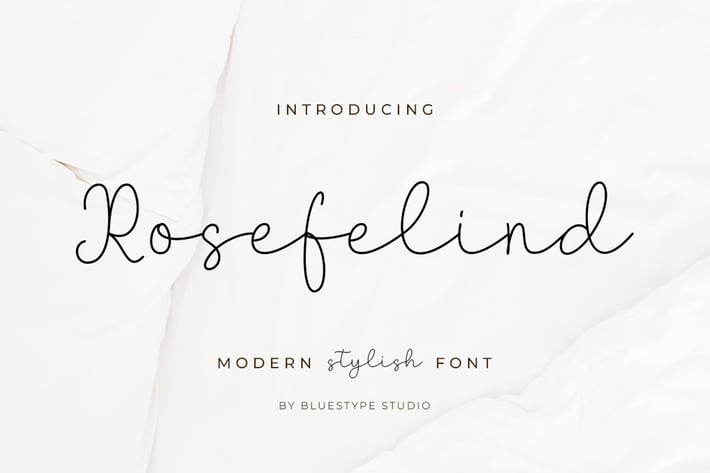
Rosefelind - Stylish Font
Rosefelind Font: Embrace modern elegance with Rosefelind. This stylish handwritten font combines contemporary flair with beautiful, flowing strokes, perfect for adding a touch of sophistication to any project.